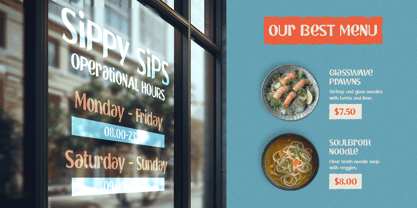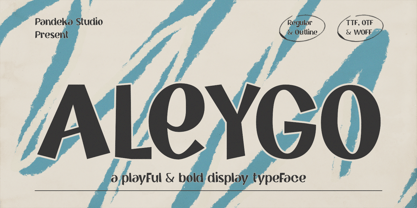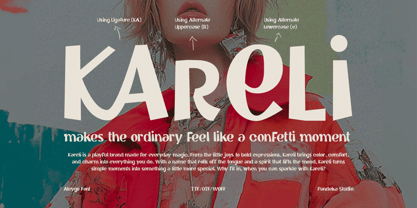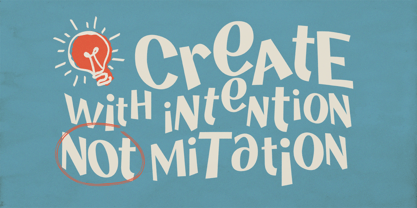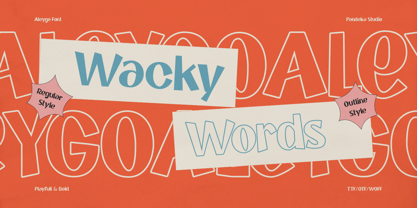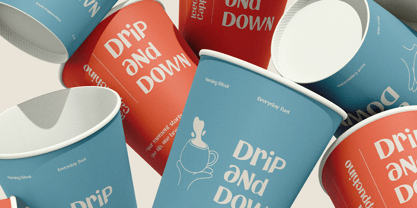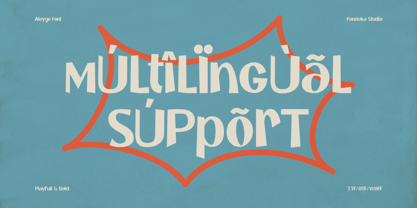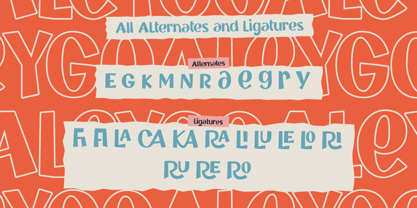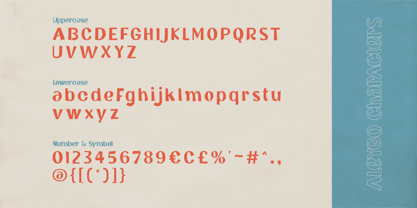
Aleygo
by Pandeka Studio
The Aleygo Font Family was designed by Sagara Nararya and published by Pandeka Studio. Aleygo contains 2 styles and family package options.
Aleygo – Playful Bold Display Font Duo
Aleygo is a fun and bold display typeface featuring Regular and Outline styles, designed to bring energy and charm to your visuals. Ideal for playful branding, bold posters, creative packaging, eye-catching social media graphics, and retro-inspired designs, Aleygo combines a whimsical look with a modern edge. Its quirky character makes it perfect for adding personality and uniqueness to any project.
• Full Character Set: Uppercase, lowercase, numbers, symbols, and punctuation
• 20+ Ligatures and alternates
Designers: Sagara Nararya